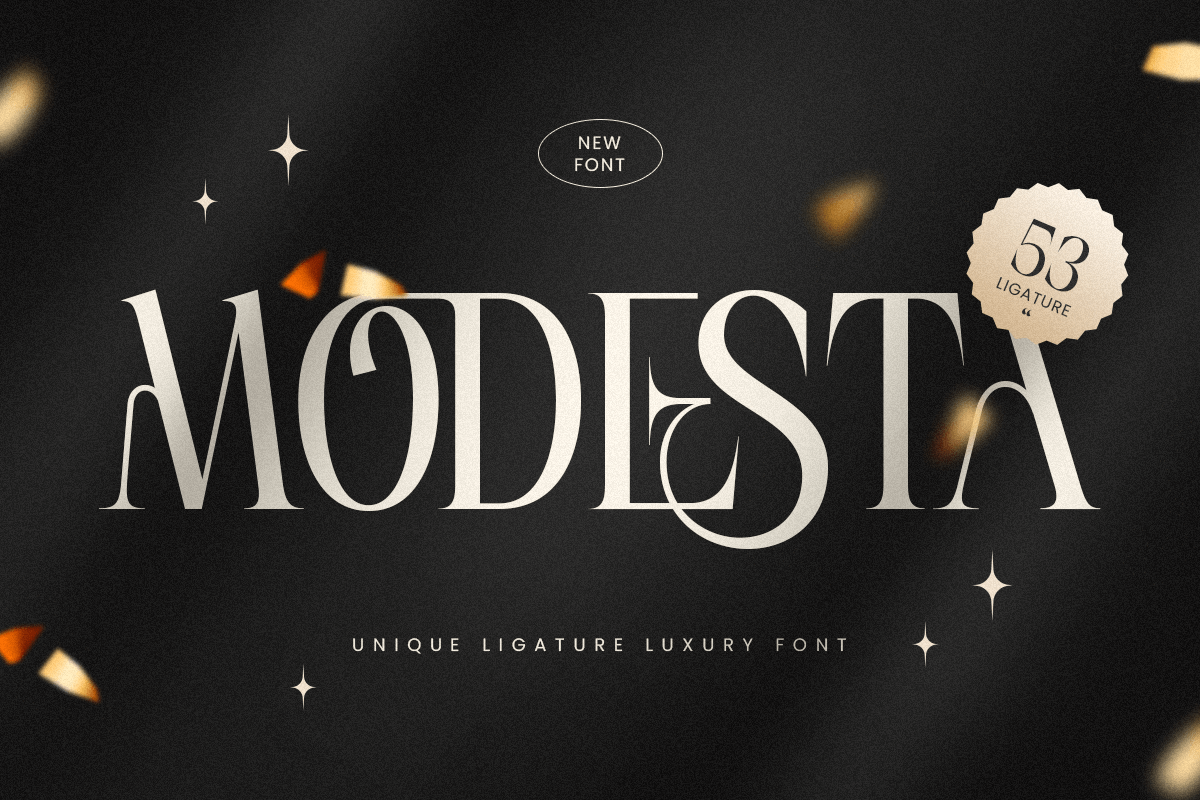
Modesta
-Unique Ligature Luxury FontModesta is a unique ligature luxury font designed to elevate any creative project with its sophisticated and elegant look. This typeface combines modern design elements with classic ligatures, making it an excellent choice for luxury branding, premium logos, and exclusive print materials. The seamless connections between characters create a harmonious flow that captivates and enhances readability.
Crafted with precision, Modesta is perfect for businesses looking to express refinement and high-quality aesthetics. From fashion magazines to upscale product labels, this font brings a timeless touch to all applications. Its distinct ligature variations add artistic value and make each project stand out with subtle uniqueness.
Choose Modesta for your design projects and let its elegance speak for itself. Whether used in branding, invitations, or web design, this typeface exudes luxury and sophistication, ensuring your work leaves a lasting impression.
Modesta Unique Ligature Luxury Font Features:
Elegant Ligature Characters Ready